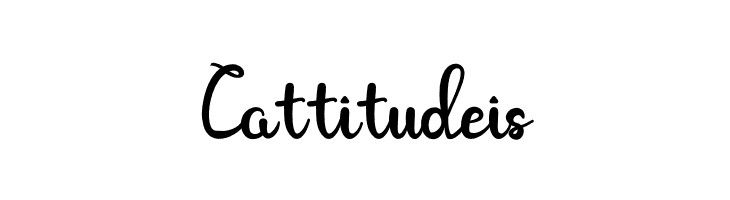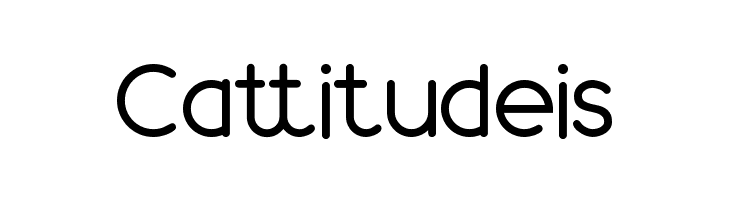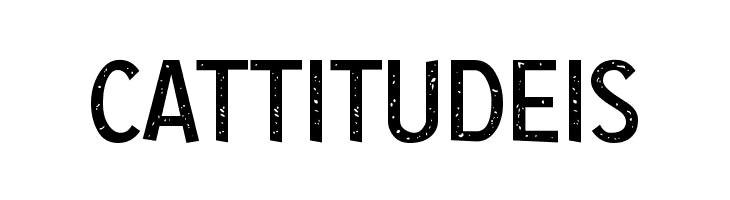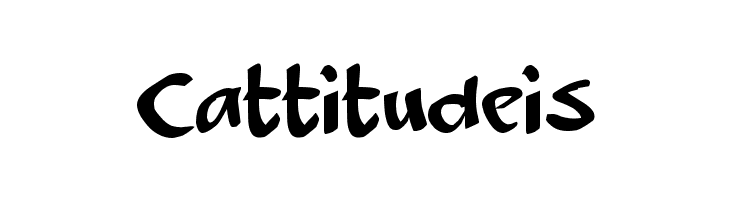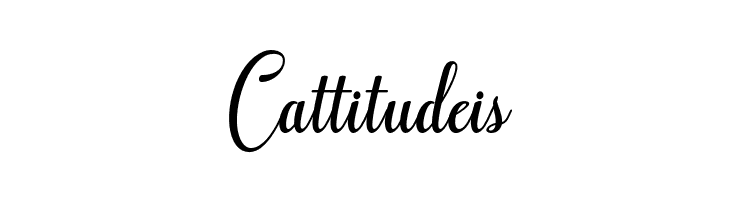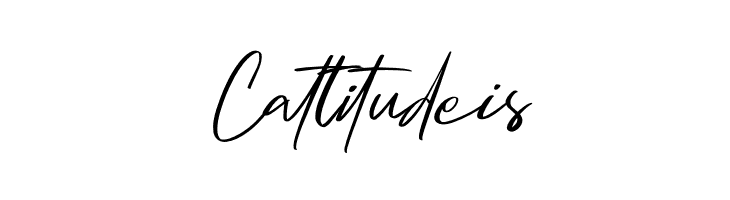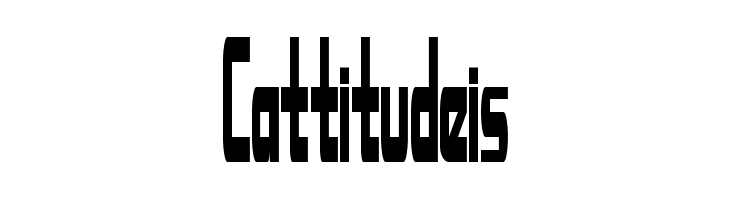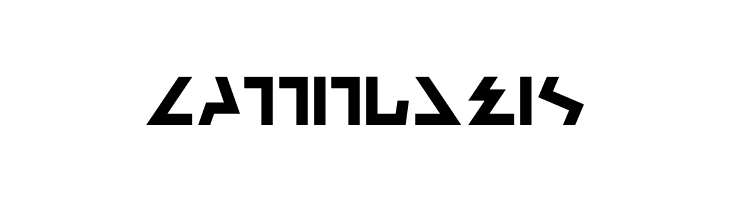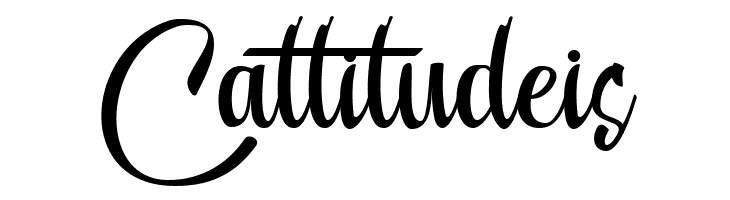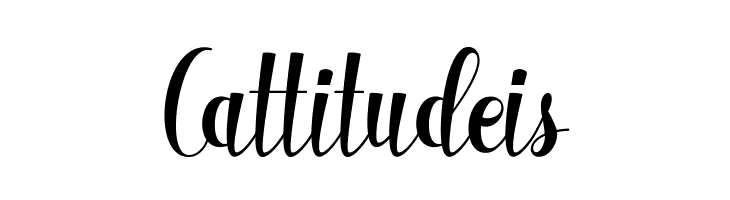
An elegant and flowing script font with classic, cursive characteristics.
A modern, rounded sans-serif font with a clean and approachable design.
A modern, rounded sans-serif font with clean lines and consistent spacing.
A playful, handwritten script font with bold, rounded uppercase and fluid lowercase letters.
A bold, slanted font with a dynamic and playful style.
A bold, playful font with rounded, smooth characters and a dynamic slant.
A modern italic font with smooth, slanted letterforms and a sleek, dynamic appearance.
A bold, distressed sans-serif font with a vintage, rugged texture.
A bold, modern sans-serif font with a distressed texture.
An elegant and decorative script font with flowing, cursive letters.
A dynamic script font with fluid, cursive strokes and a natural handwriting style.
A fluid and elegant script font with a handwritten style.
A dynamic, cursive script font with a fluid, handwritten style.
Elegant cursive font with a signature-like flow.
A bold, elegant cursive font with high contrast and decorative swirls.
A bold, geometric font with a three-dimensional, shadowed effect.
A cursive, calligraphic font with elegant loops and swashes.
A fluid and elegant script font with a modern cursive style.
A bold, playful font with decorative curves and whimsical flair.
A bold, flowing script font with a modern and elegant style.
An elegant script font with flowing, cursive lines and sophisticated style.
A bold, condensed typeface with tight spacing and strong visual impact.
A dynamic cursive font with a fluid, elegant style.
A bold, handwritten-style font with dynamic and playful characteristics.
A bold, hand-drawn font with an energetic and artistic style.
A playful and whimsical script font with a handwritten style.
A playful and artistic script font with flowing, cursive letterforms.
A lively script font with fluid, continuous strokes and a personal touch.
A lively, cursive handwritten font with expressive, flowing letterforms.
An artistic and elegant font with flowing curves and distinctive embellishments.
A modern, elegant script font with graceful curves and unique swashes.
A bold, handwritten-style font with dynamic and expressive characters.